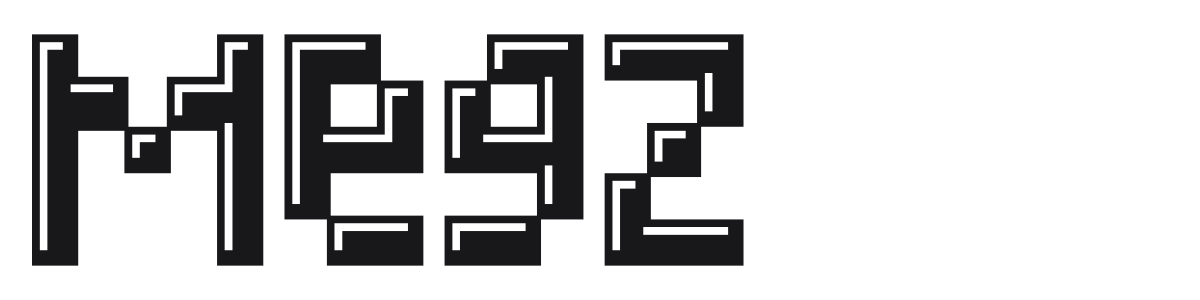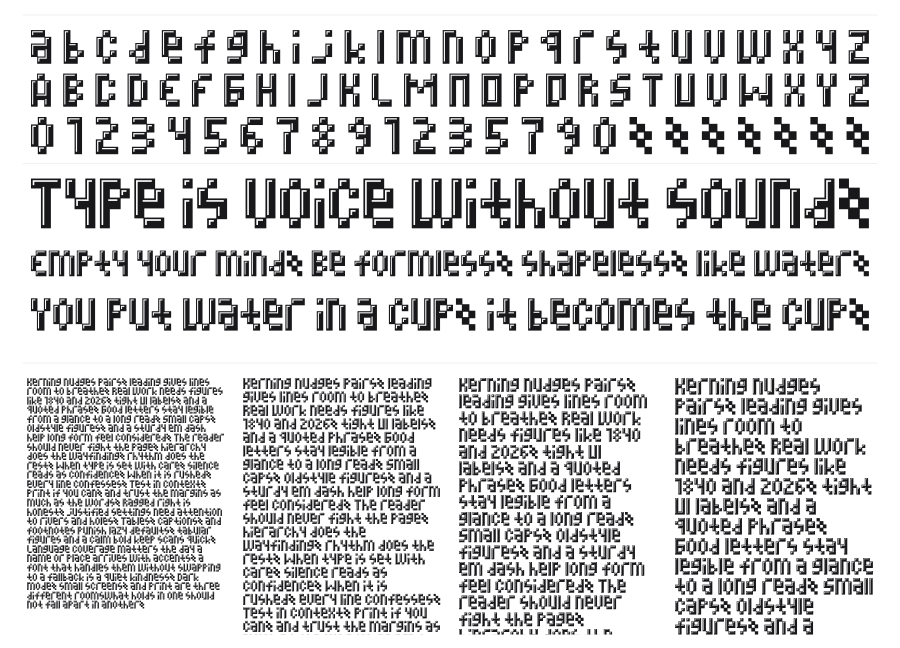
Megz
Megz is a bold, blocky pixel font from Etherbrian with chunky geometric letterforms that feel rooted in early computer graphics and 8-bit game culture. The characters are heavy and squared off, giving headlines and display text a distinctly retro-digital punch. Best kept large, where the pixelated structure reads as intentional style rather than low resolution.